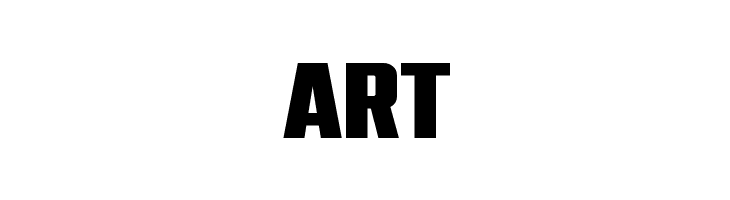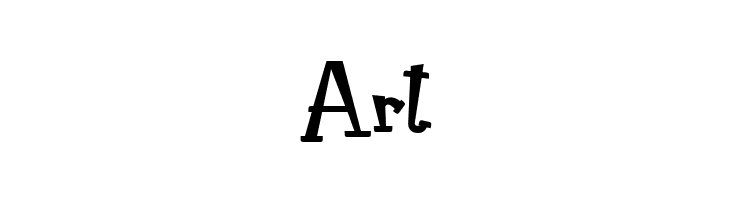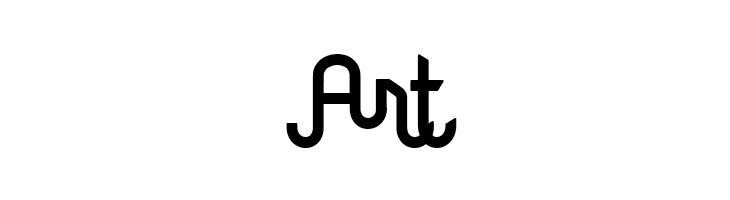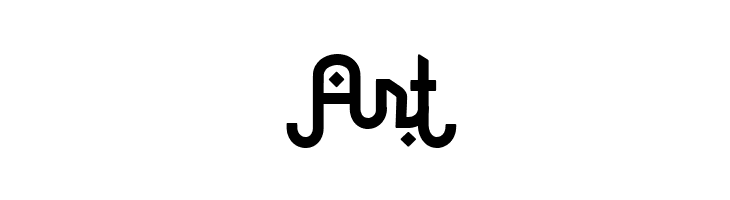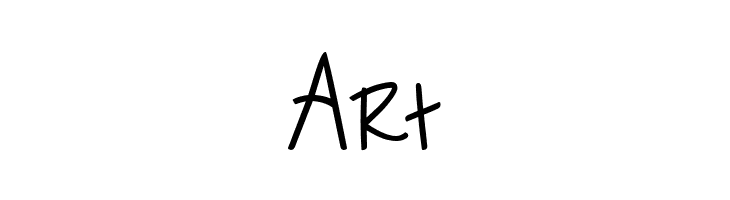
A bold, playful font with dynamic and irregular letterforms.
A bold, rounded sans-serif font with smooth curves and uniform strokes.
A bold, rounded font with uniform strokes and a playful, approachable style.
A bold, dynamic script font with thick, rounded strokes and tight spacing.
A bold, modern font with thick, uniform strokes for impactful designs.
A bold, geometric font with a futuristic and edgy style.
A bold, italicized font with angular lines and a futuristic style.
A bold, modern font with a geometric and interconnected design.
A bold, geometric font with modern and decorative elements, featuring high contrast and unique looped structures.